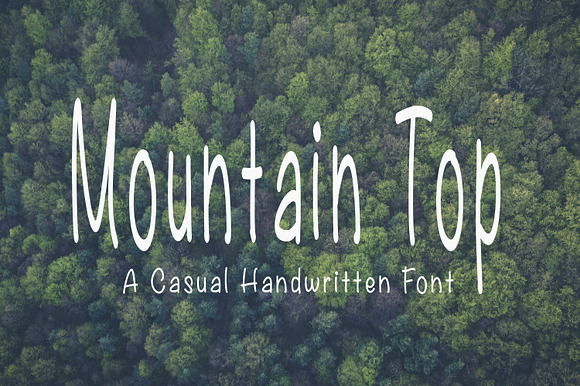
Mountain Top Handwritten Font
- Mountain Top is a casual handwritten font that includes a full set up upper and lower case letters, numerals, and a large set of punctuation
Mountain Top Handwritten Font by Hudson Lark Studio fits naturally into Branding, posters, packaging, typography.